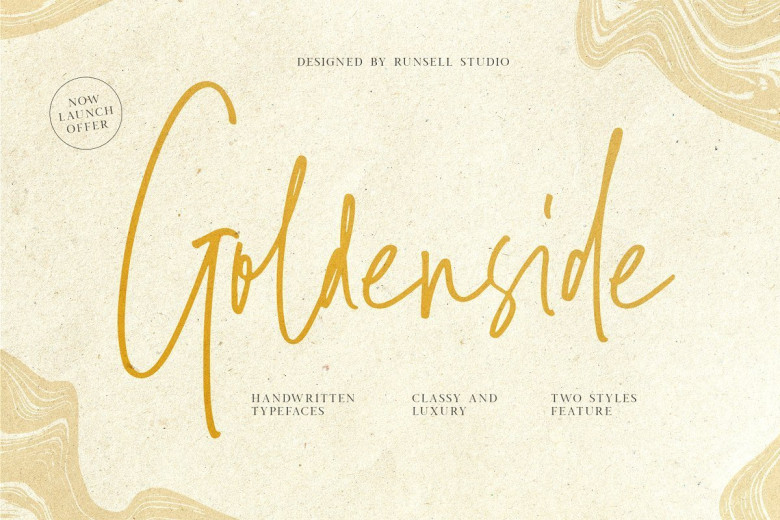
Goldenside Handwritten Script Typeface
Goldenside Script Typeface is a classy handwriting font with a distinctive curve, inside with some interesting features that are perfect for a authentic-style project . Goldenside is perfectly suited to signature, stationery, logo, typography quotes, magazine or book cover, website header, clothing, branding, packaging design and more.